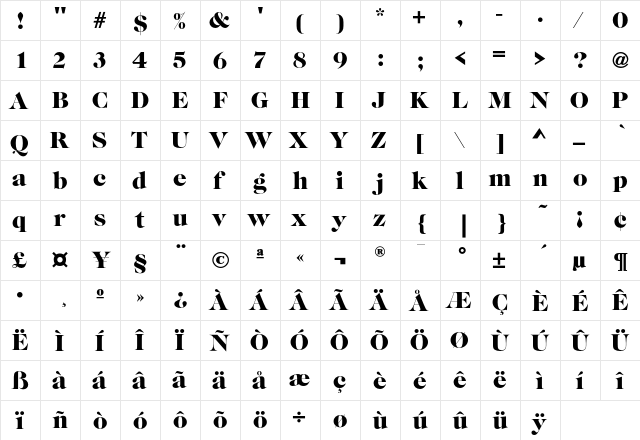
CaslonGraphiqueEF Regular
Design Context for CaslonGraphiqueEF Typeface
CaslonGraphiqueEF offers clean, dependable letterforms without strong stylistic allegiance, making it a practical choice for designers who need flexibility.